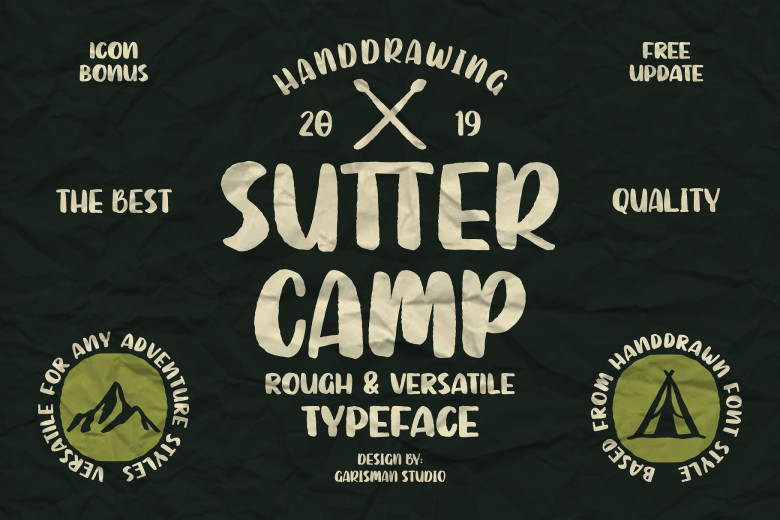
SUTTER CAMP Typeface
A modern Adventure Typeface by Garisman Std. Introducing SUTTER CAMP Font. Starting from a light streak with a special brush in an atmosphere of adventure and the natural world was born SUTTER CAMP. With a touch of rough brush and thick lines, SUTTER CAMP is here to meet font users. Especially you who like adventure style and handdrawn. Very suitable!
SUTTER CAMP is also very good for use in branding, logo, packaging, quote, handlettering, t-shirt design, banners, posters and many other great jobs. Make it interesting using SUTTER CAMP.